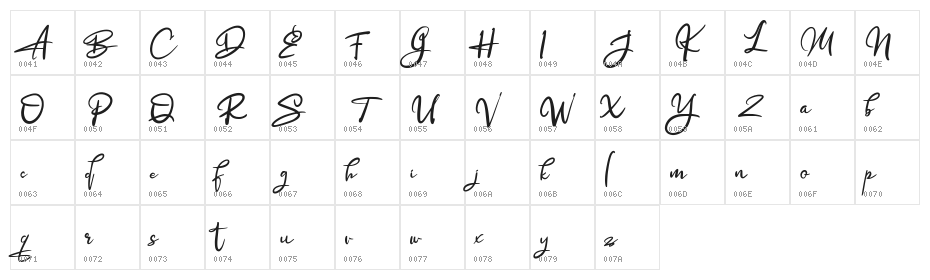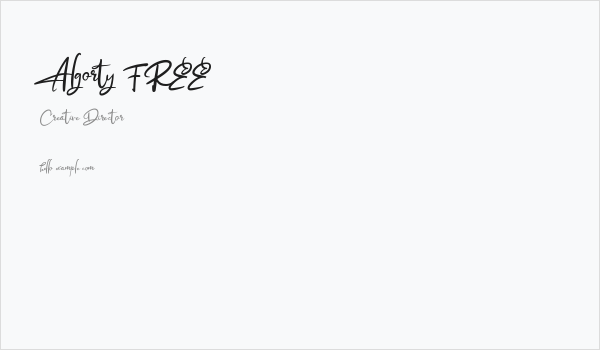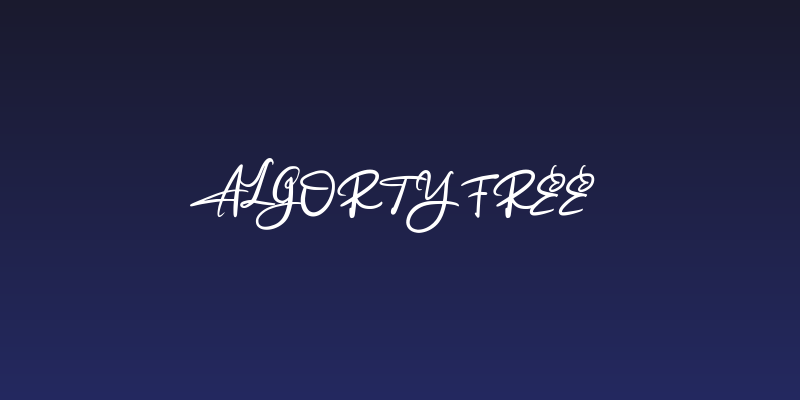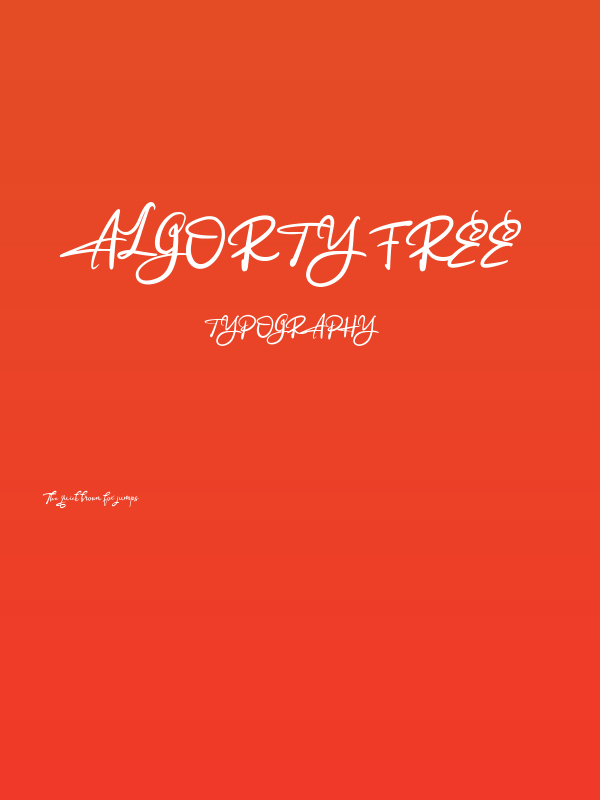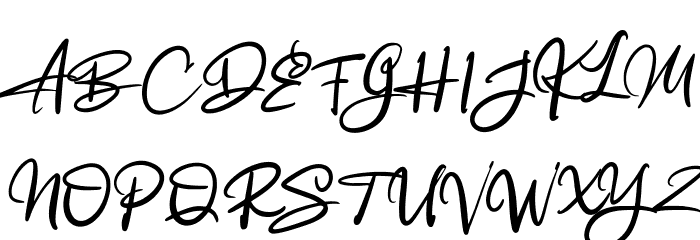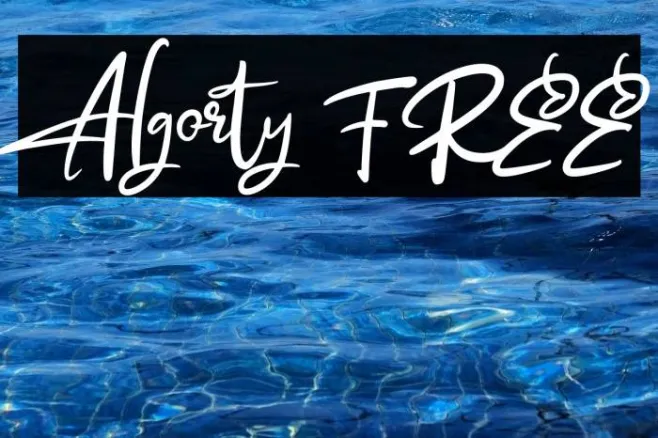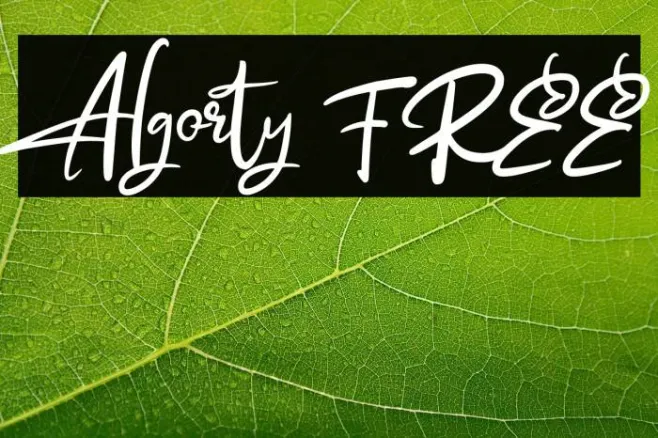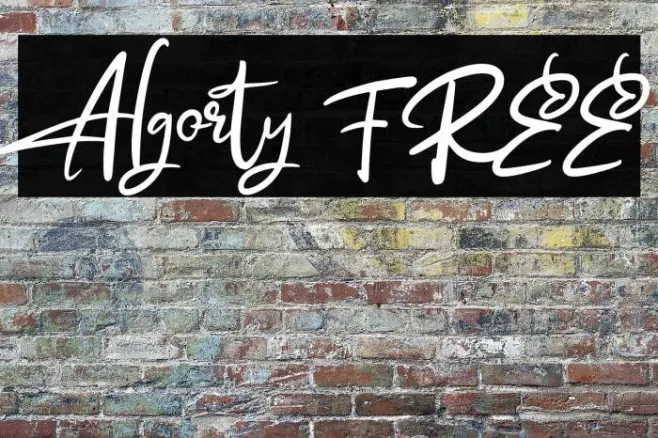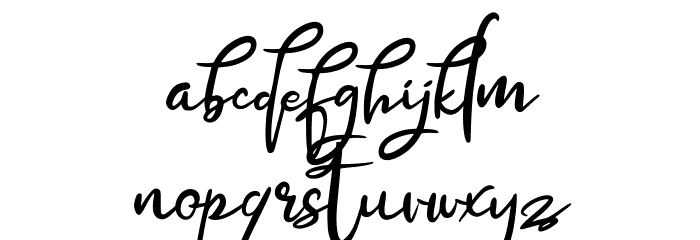
Algorty FREE Font
Algorty FREE Description
This font exudes a lively and energetic script style, characterized by its fluid and dynamic strokes. The letters are interconnected, creating a seamless flow that mimics natural handwriting. The uppercase letters are bold and prominent, while the lowercase letters maintain a consistent rhythm with elegant curves. The font's playful nature is enhanced by its varying stroke thickness, adding a sense of movement and personality. This script is perfect for projects that require a personal touch, such as invitations, greeting cards, or branding materials that aim to convey warmth and creativity.
| Proposed Projects | Ideal for invitations, greeting cards, branding materials, and creative projects. |